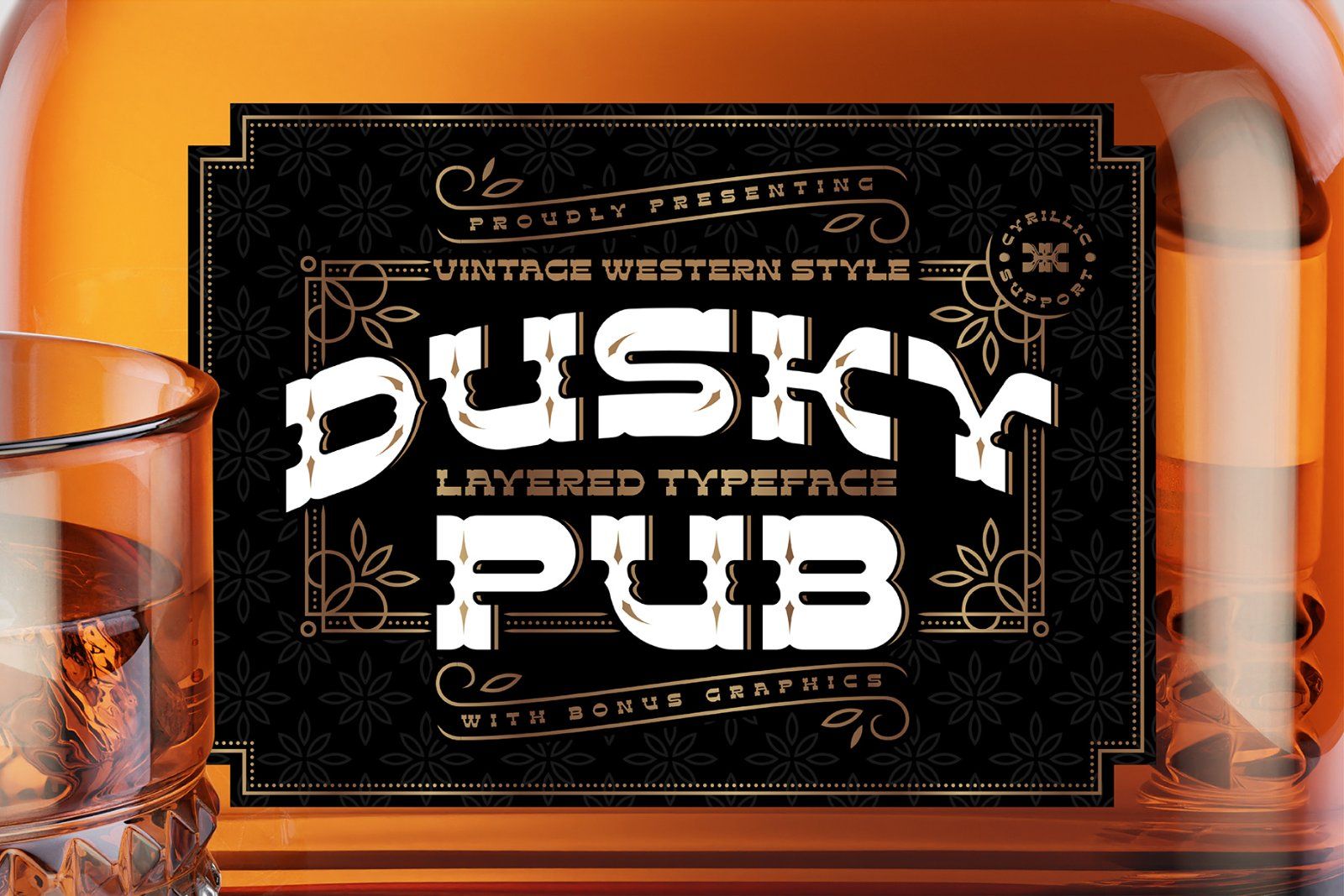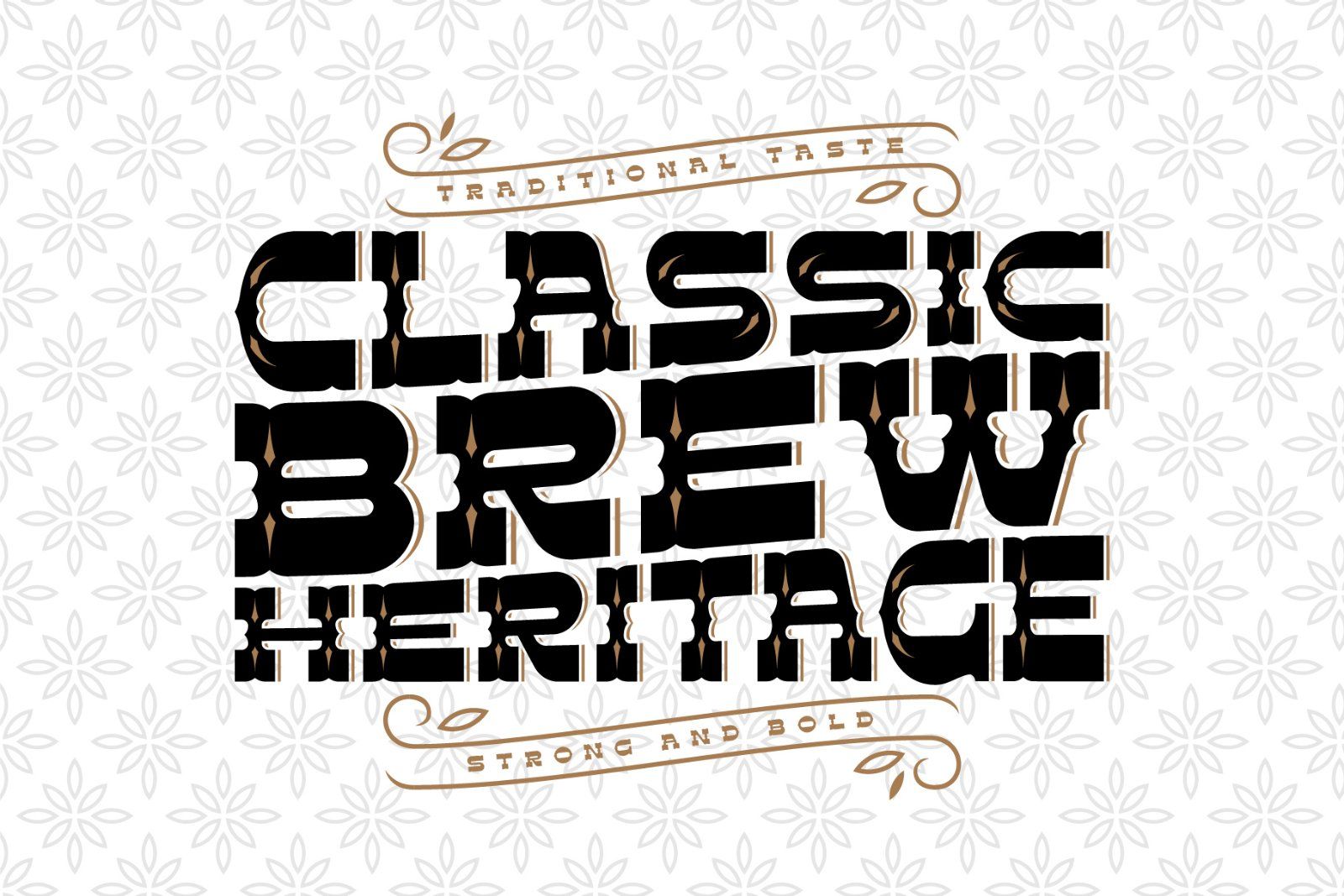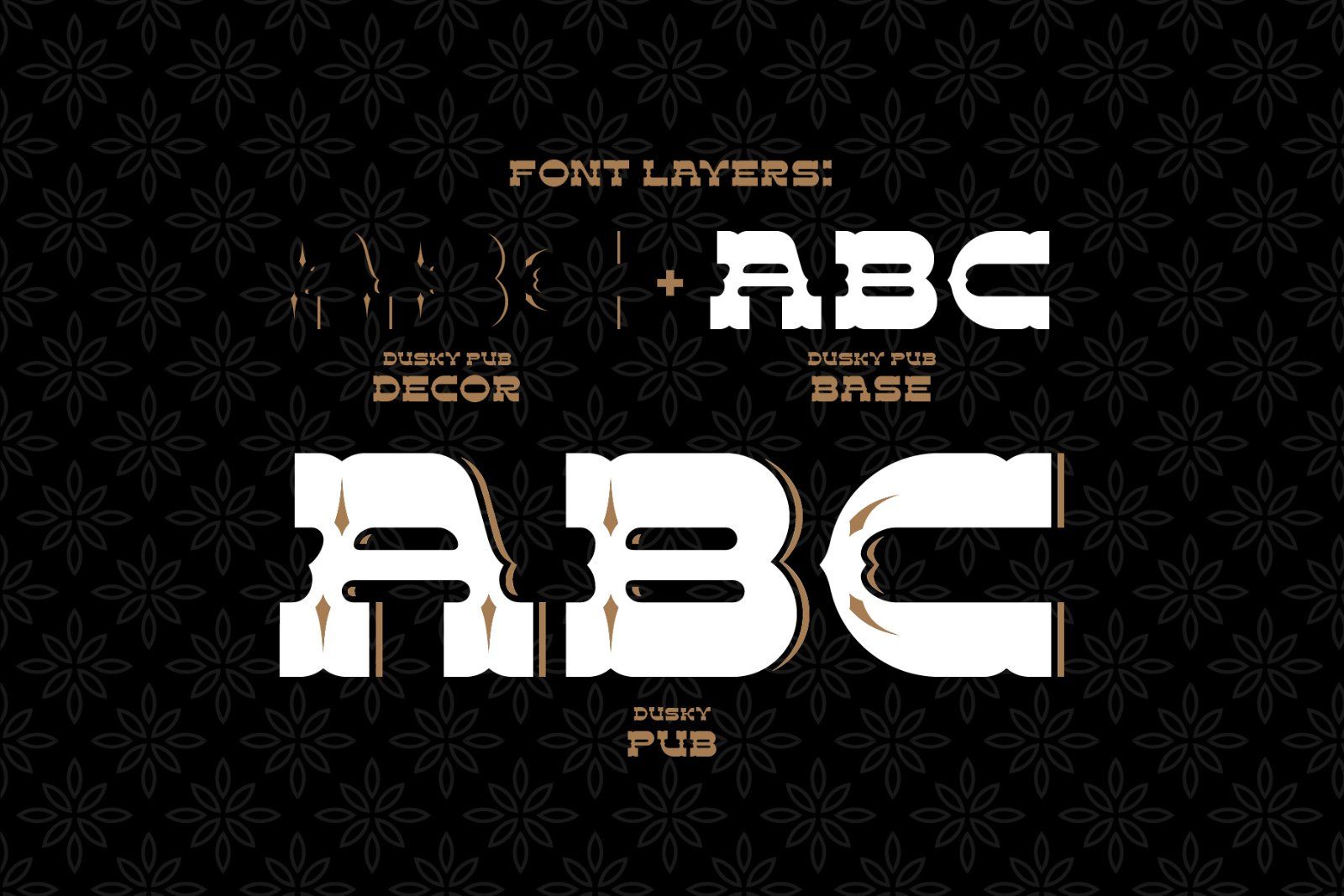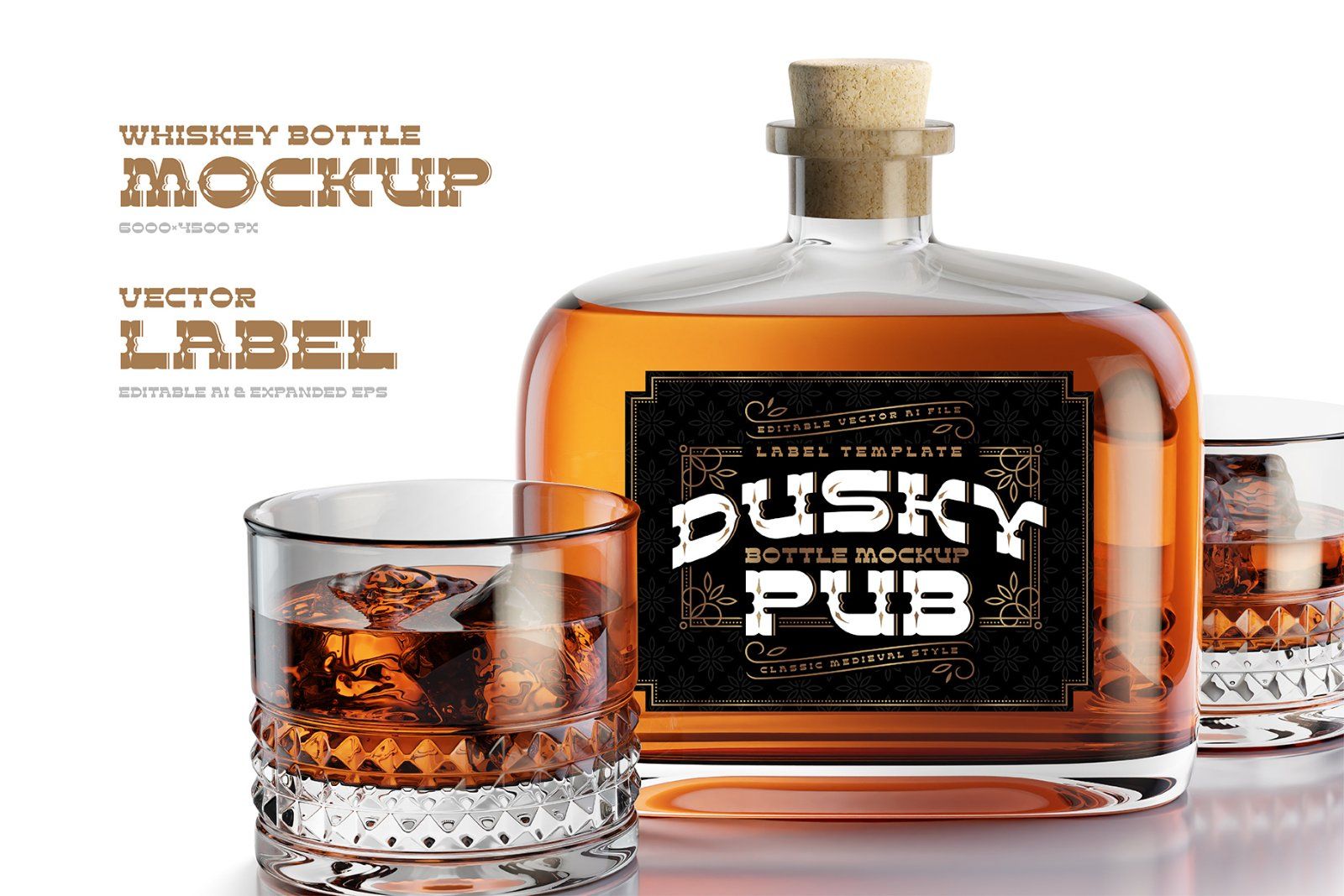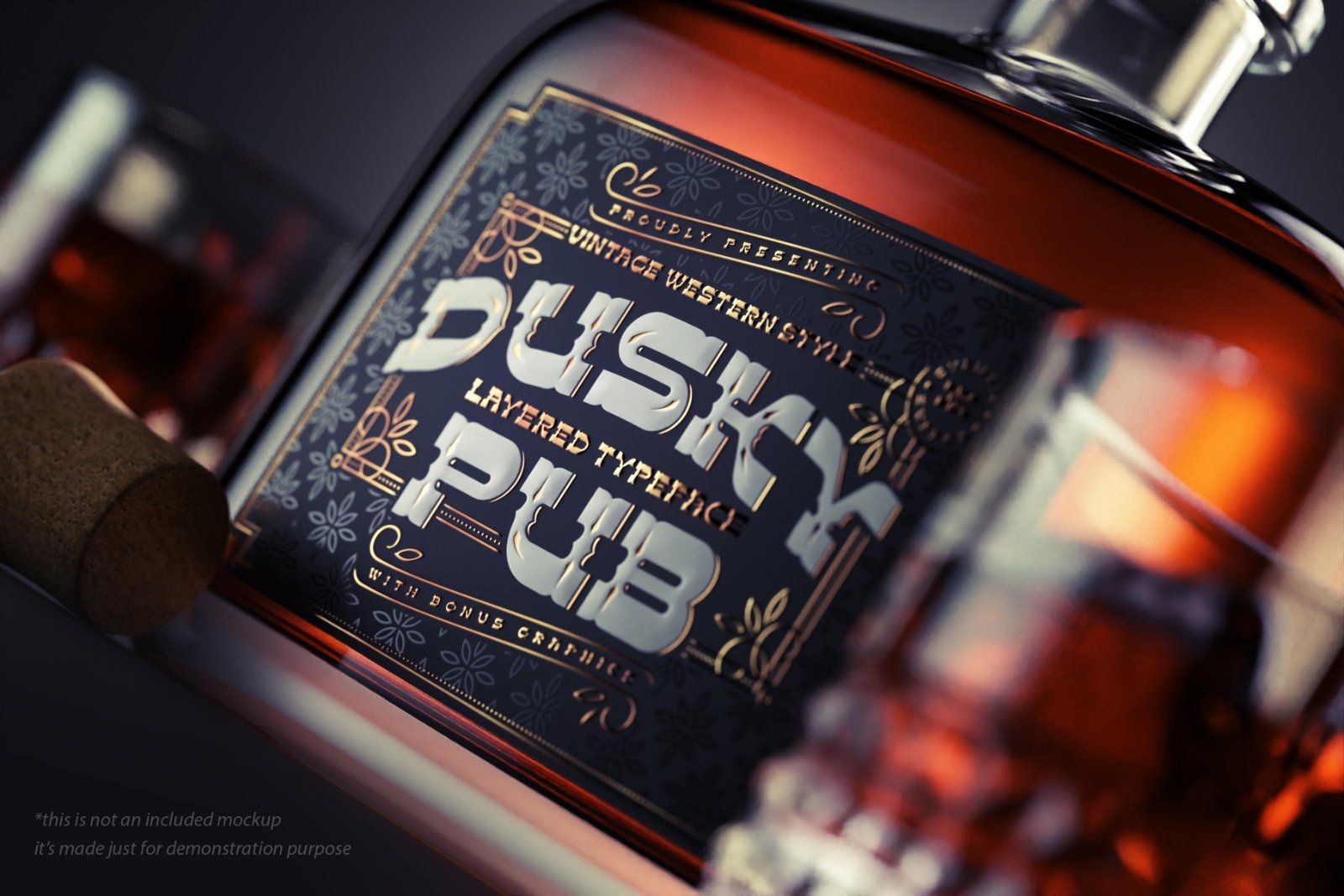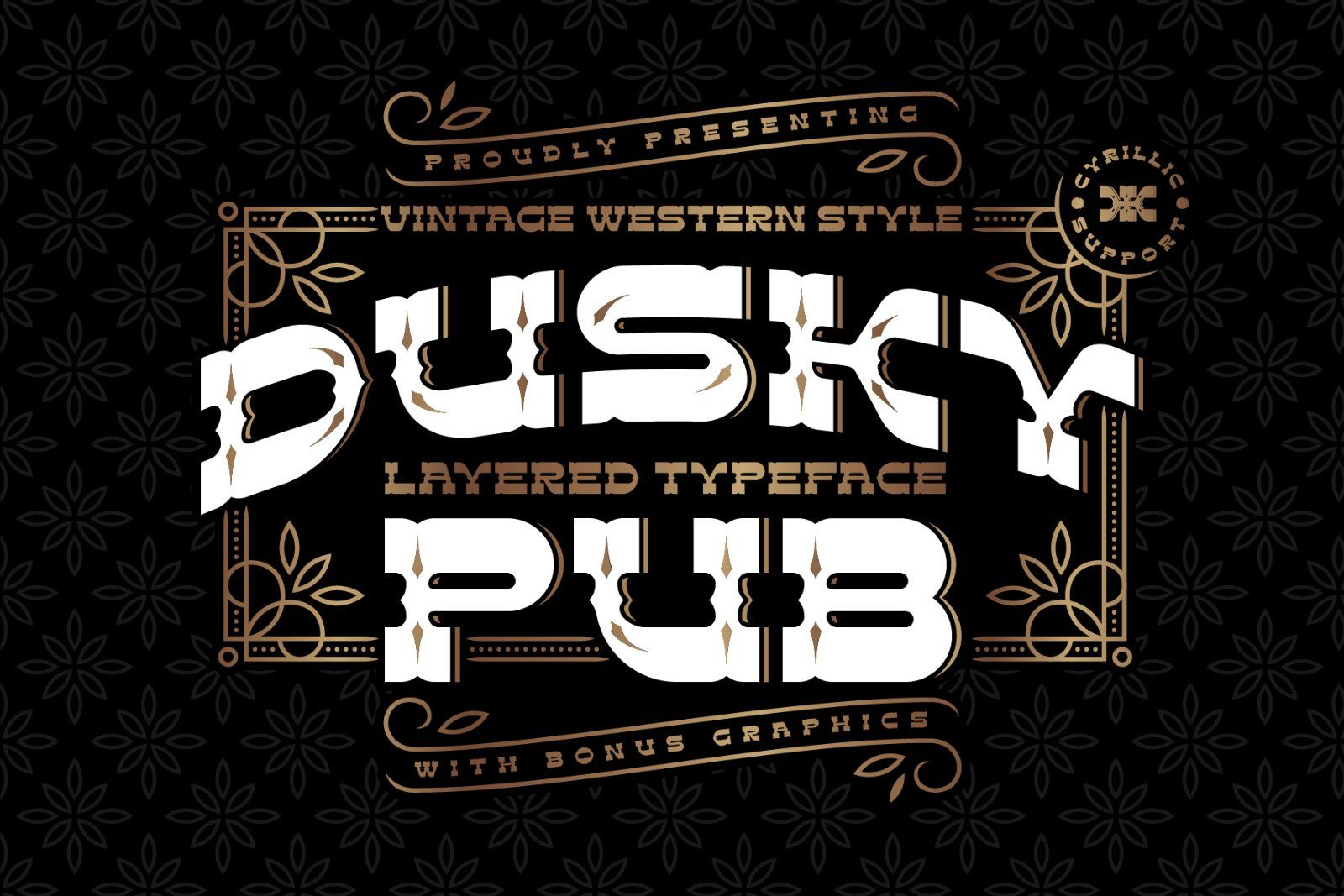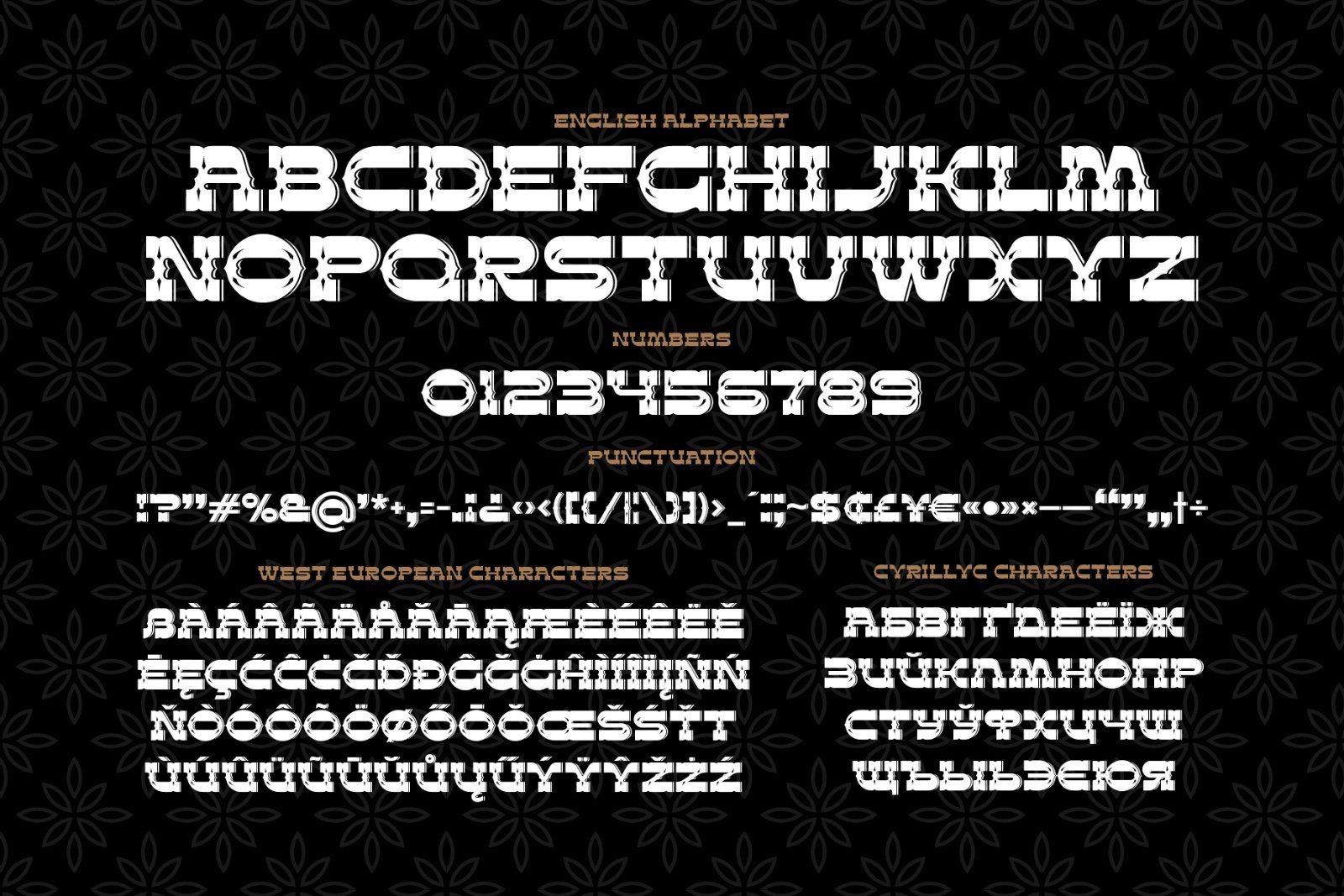
Introducing a vintage typeface named Dusky Pub. It's a layered font set made in classic western style. Bold shape with slab serifs makes it perfect for various labels and product designs. Wide range of languages support is available, including west European and Cyrillic characters.
This package also comes with some bonus graphics, such as whiskey bottle psd mockup, rendered in high resolution (Adobe Photoshop is required). And editable vector label with ornate and pattern on it. (Adobe Illustrator is required).